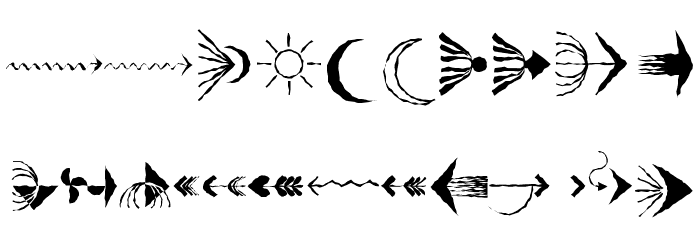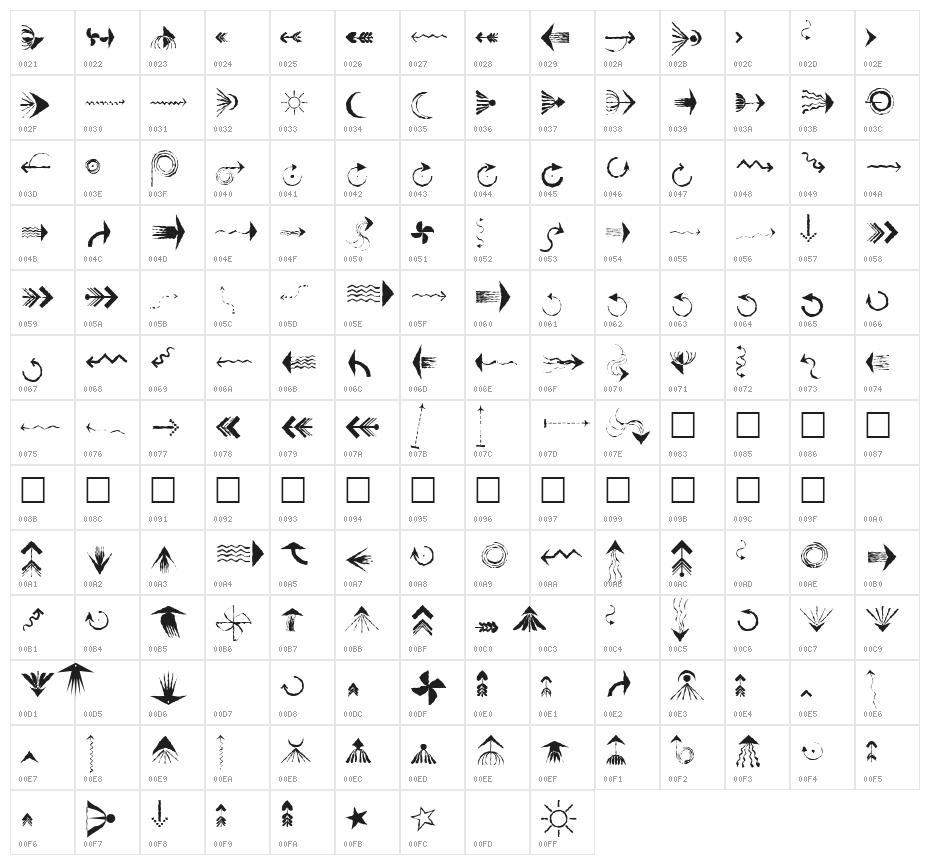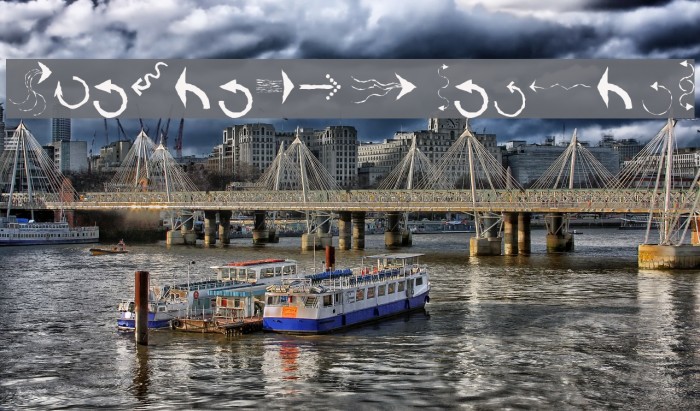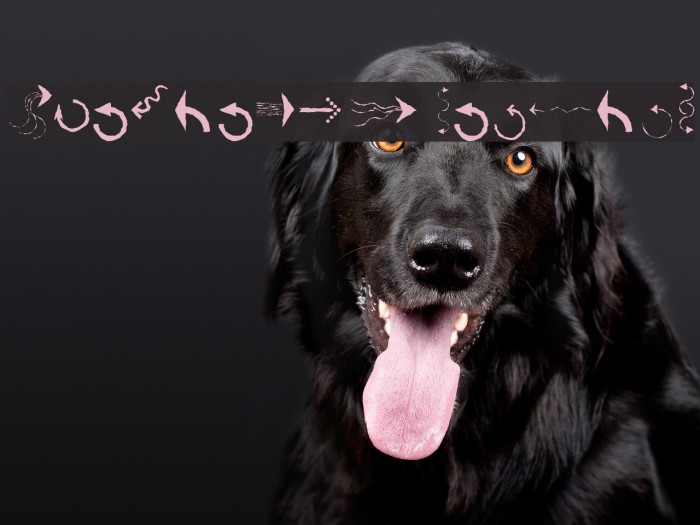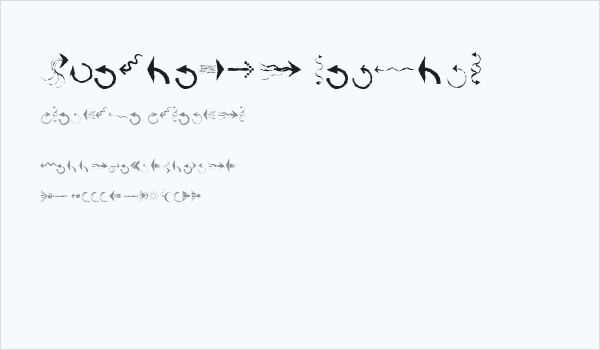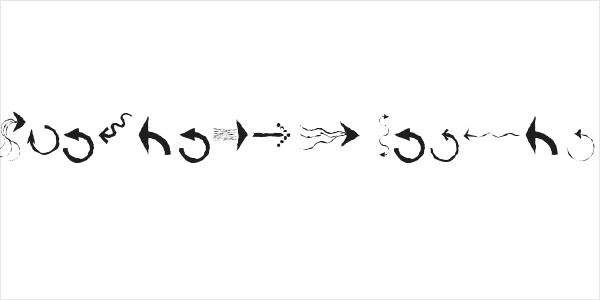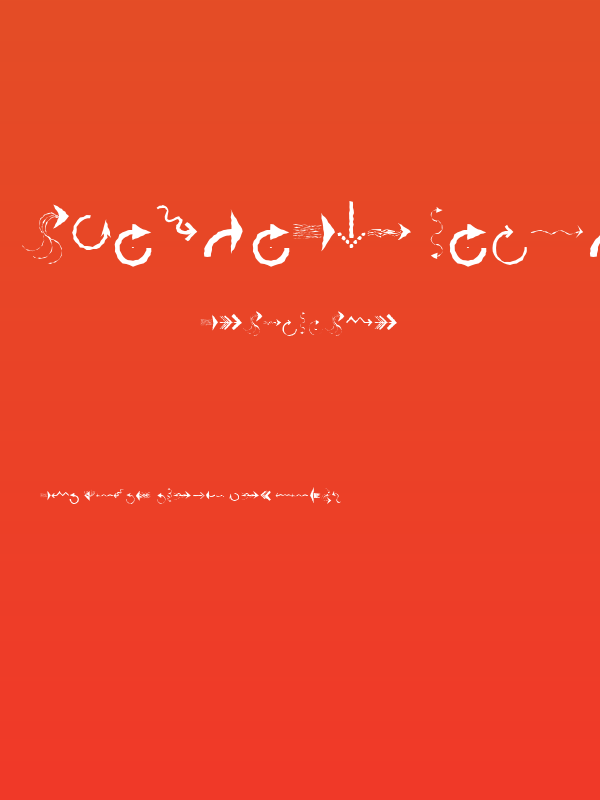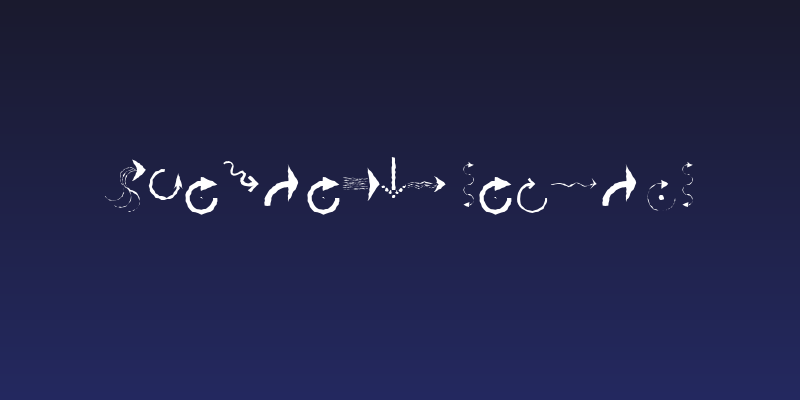
PfeileTwo Regular Font
PfeileTwo Regular Description
A decorative dingbat font featuring a wide variety of hand-drawn arrows, swirls, and directional symbols with organic, sketch-like textures and playful, irregular forms.
| Overall Style | Decorative, Playful, Hand-drawn |
| Use Case | Icons, Decorative elements, Infographics |
| Proposed Projects | Infographics, creative presentations, maps, posters, educational materials, and editorial illustrations. |